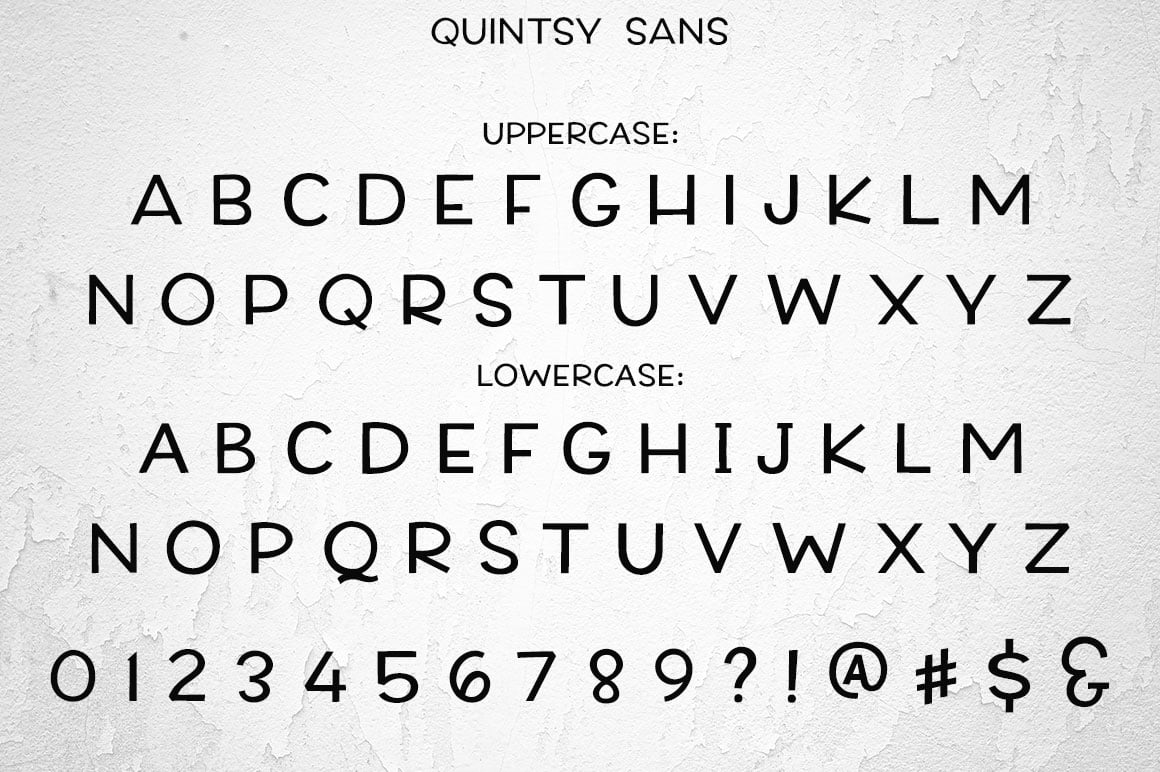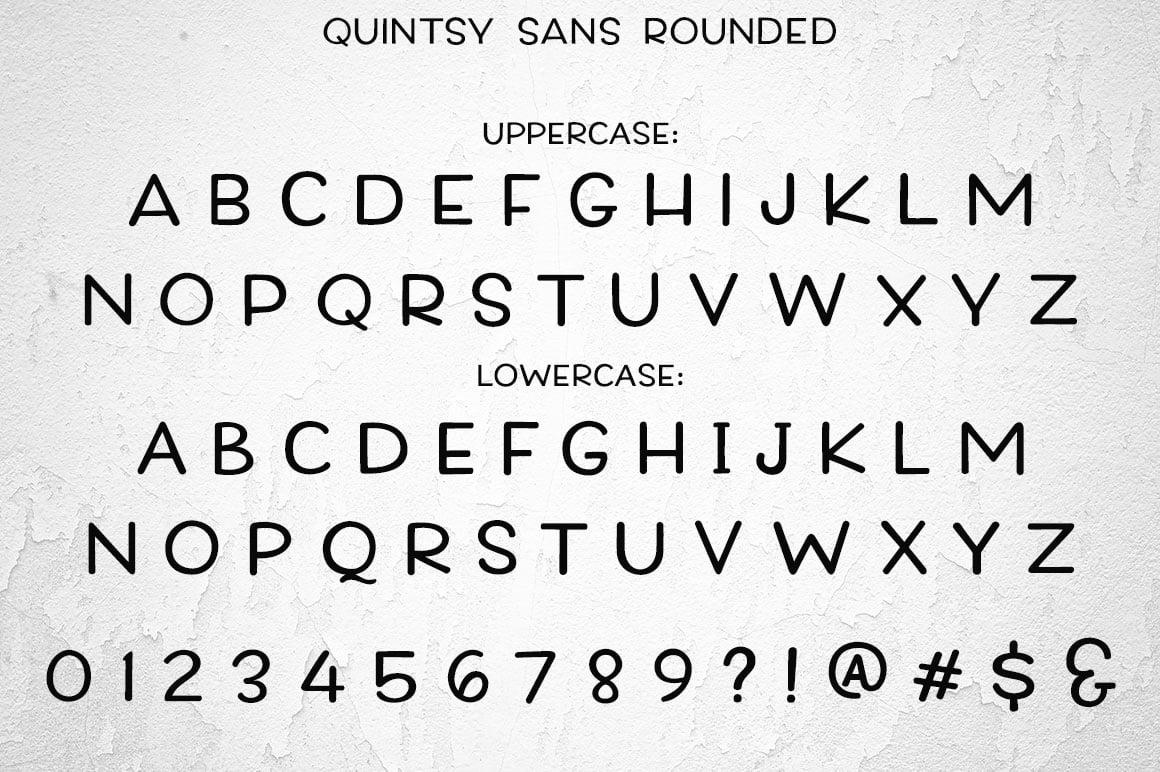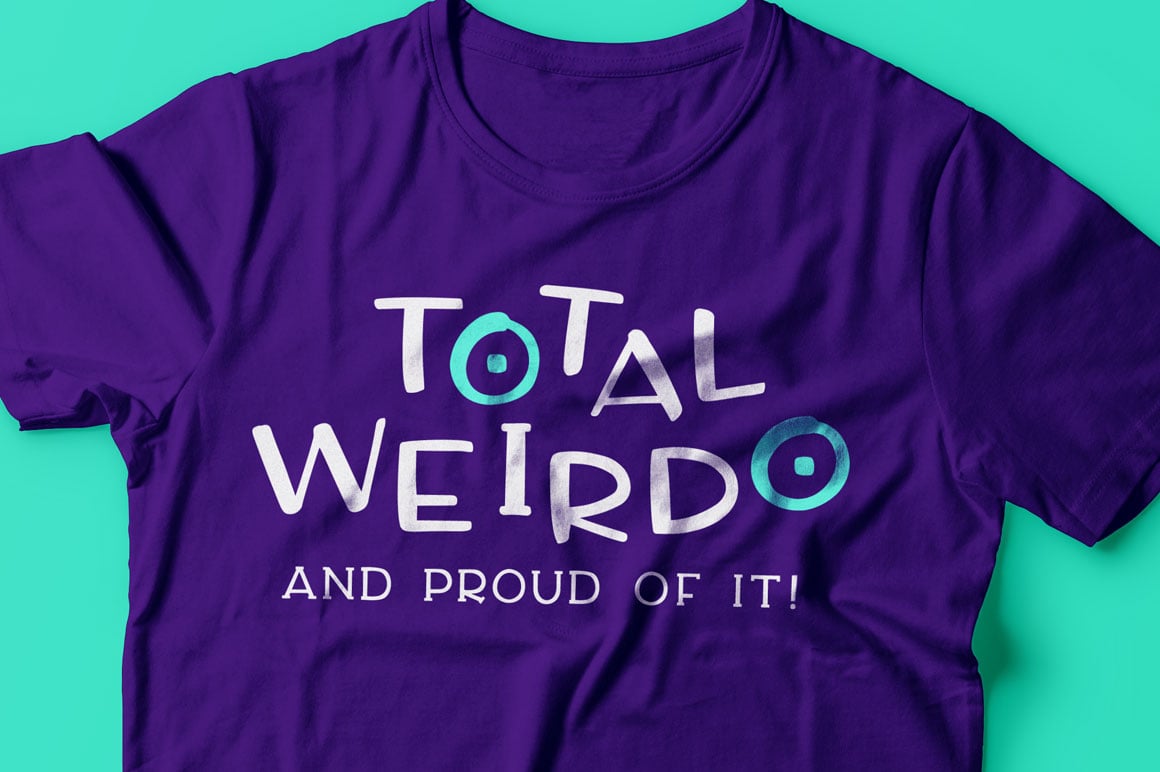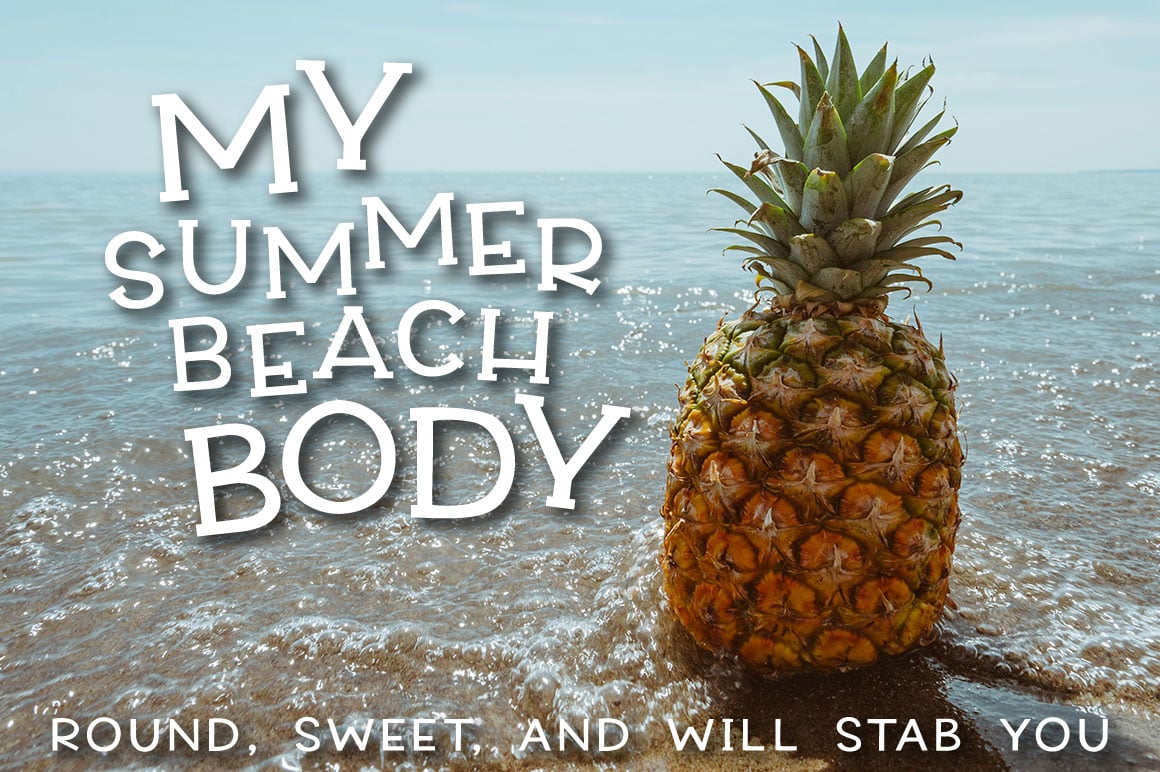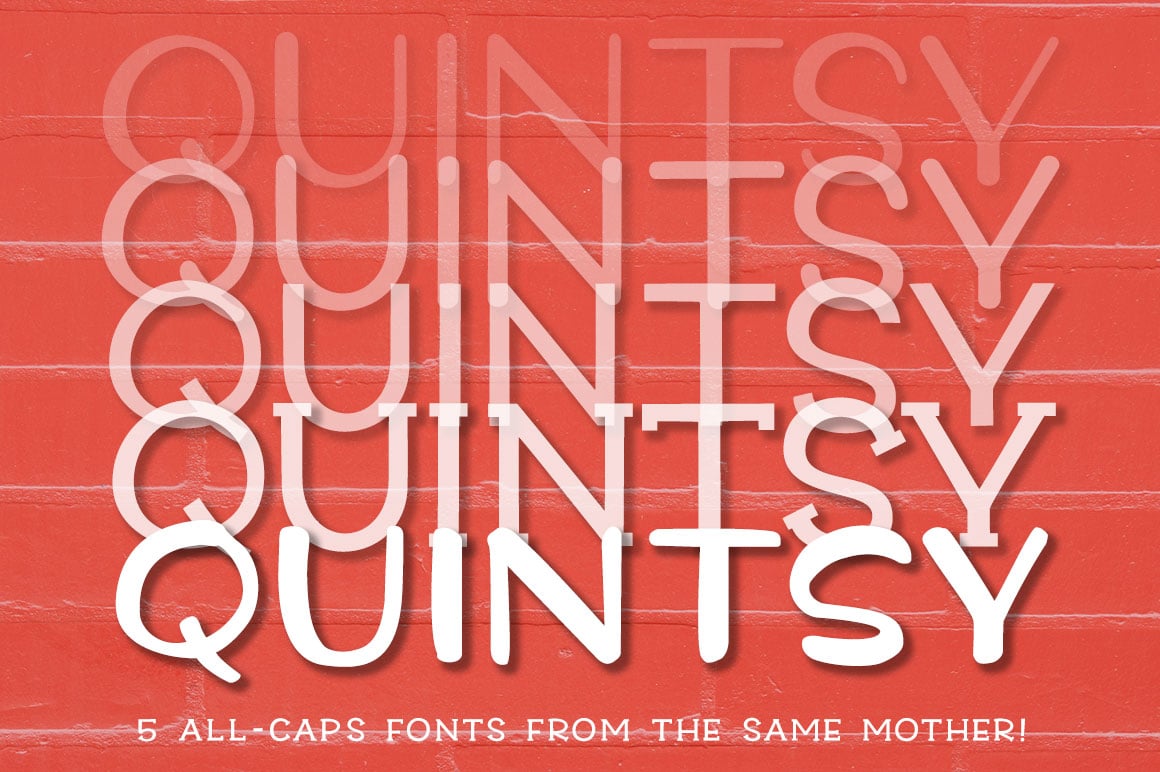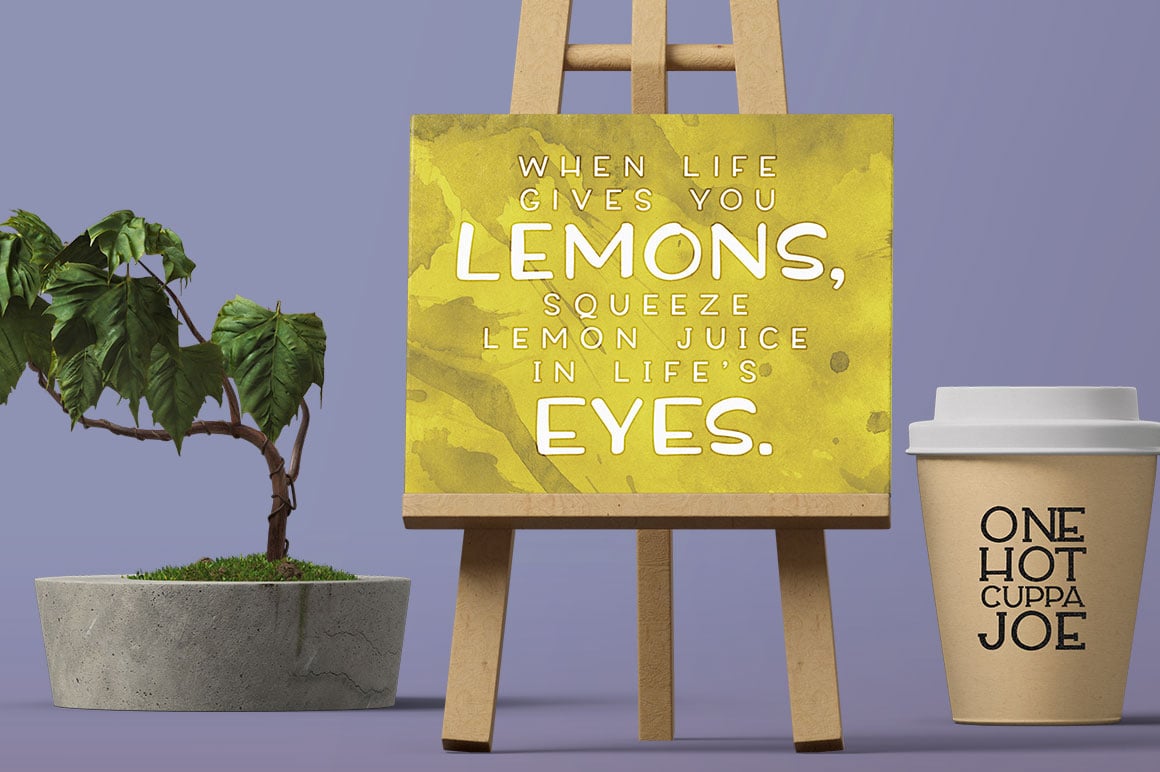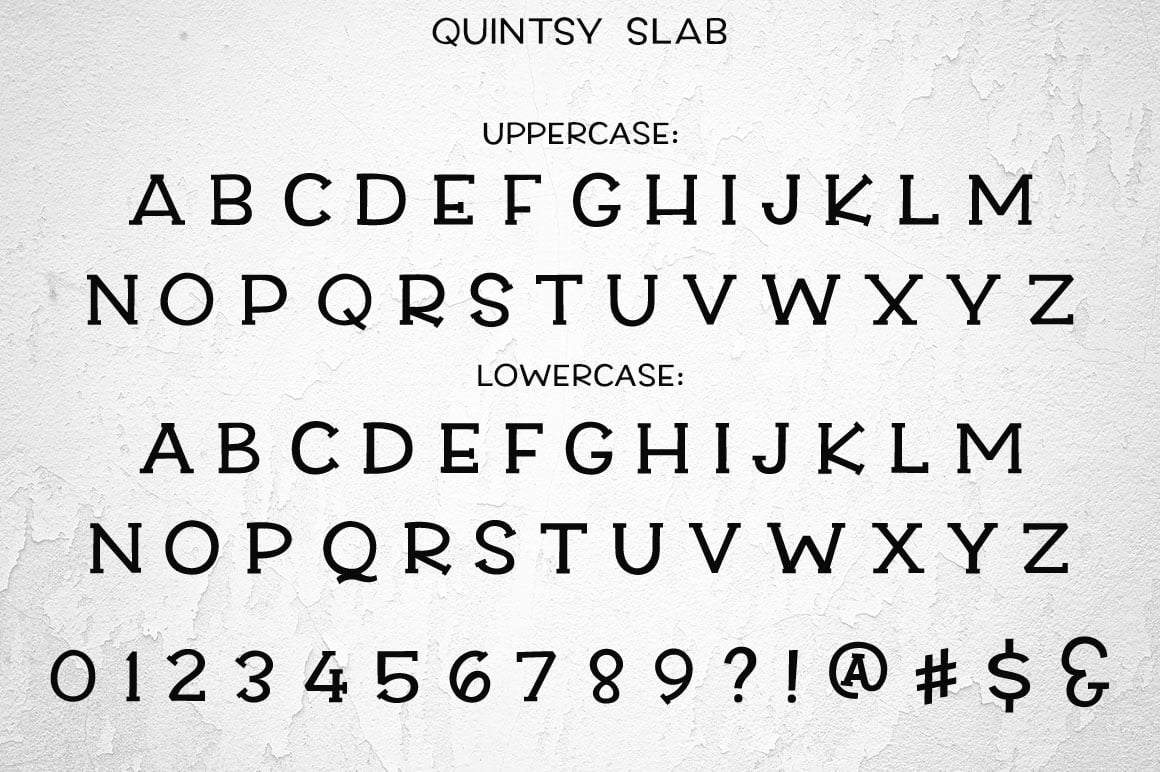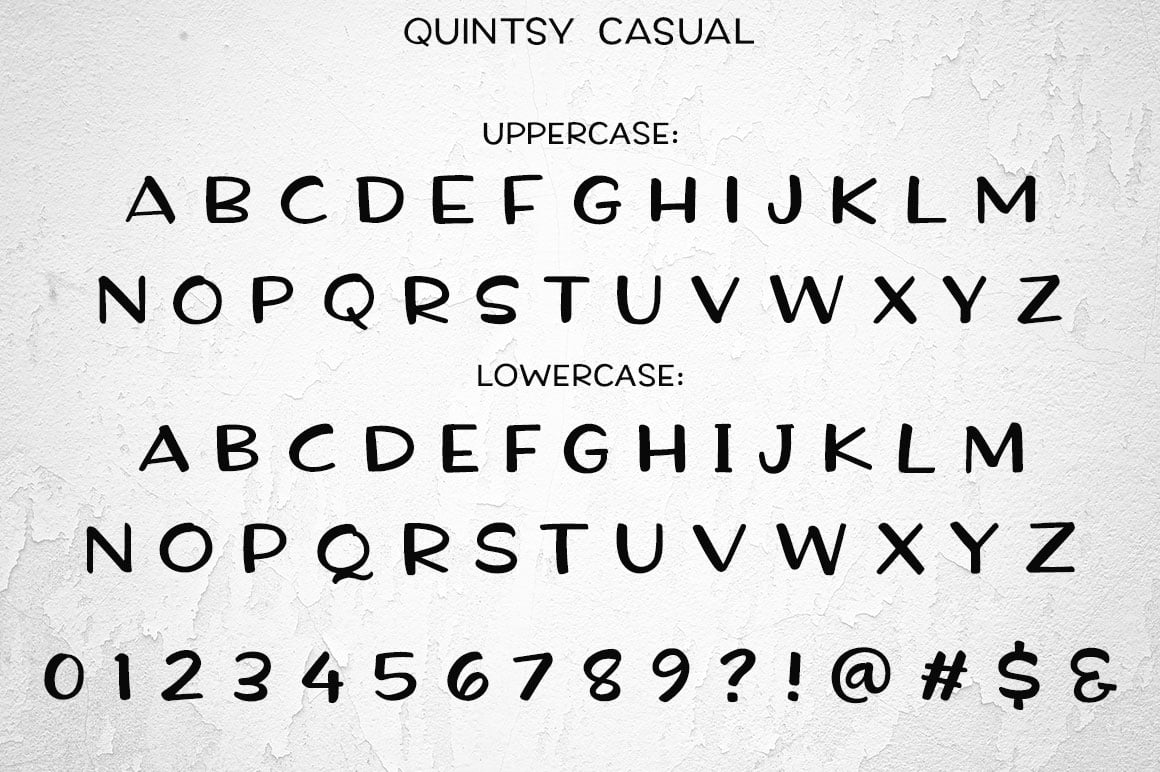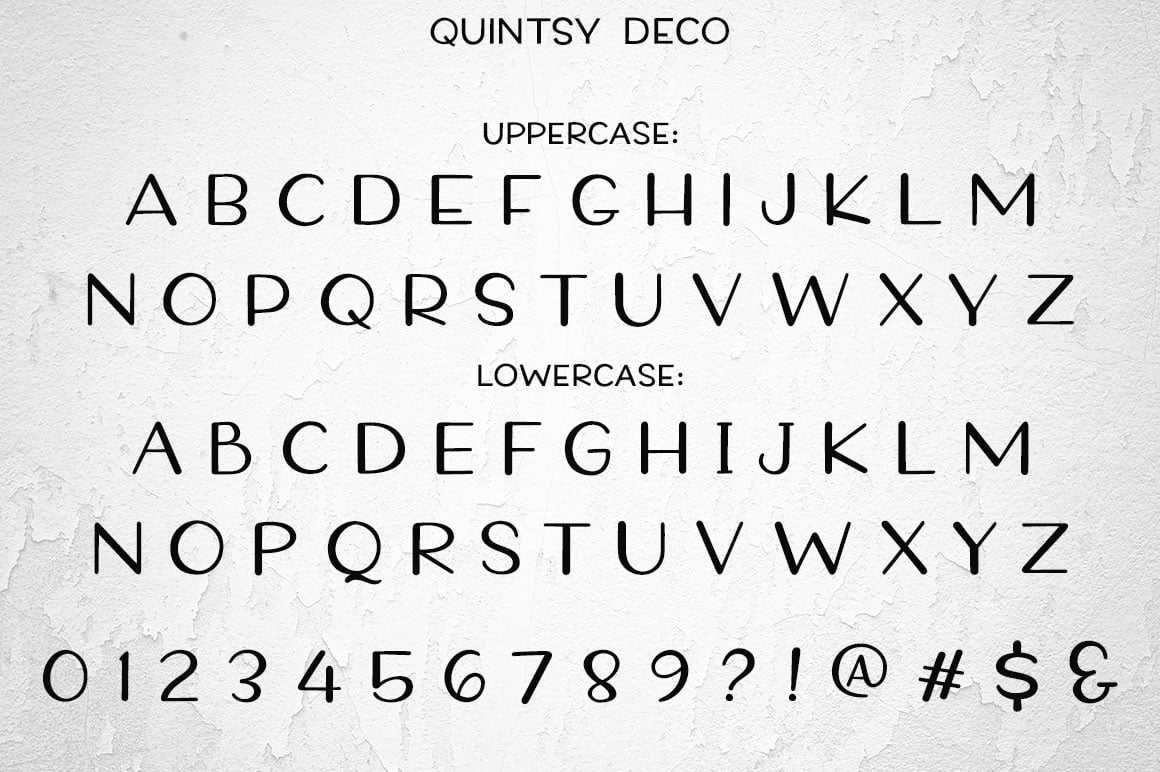
Quintsy
One set of source letters has given birth to bouncing baby quintuplets! In an effort to make a sans-serif font that would pair nicely with my script font Virga, I went through several different iterations from the same original set of drawn letters.
Not all of the results pair well with that one specific script font, but I liked them all! So I'm bundling all five of these fonts up as a family. They're great supporting players, but they can also all stand on their own, and they can pair with each other!
These five fonts are all made up of 100% uppercase letters, with different versions mapped to the uppercase and lowercase keyboard, so you have different options for each letter.
All five Quintsy fonts contain over 200 accented characters for foreign language support (including English, French, Spanish, German, Polish, Romanian, Portuguese, Swedish, Finnish, Norwegian, Danish, Esperanto, Czech, Dutch, Welsh, Filipino, Turkish, and more!)
- Quintsy Sans, Sans Rounded, Slab, Deco, and Casual
- Each font contains two separate all-uppercase alphabets
- Over 200 extended Latin characters for language support